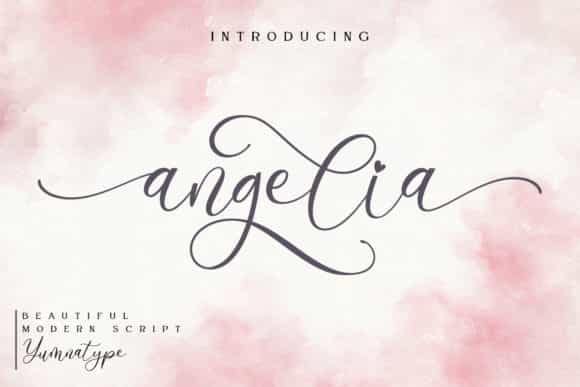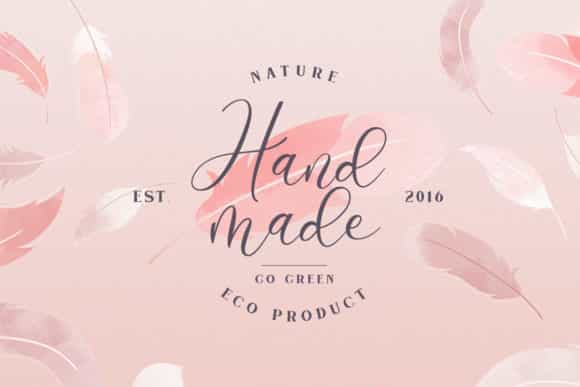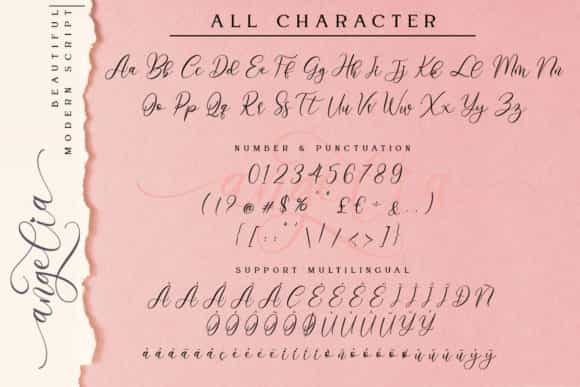
Angelia is an elegant calligraphy typeface that has a classic roots. Beautiful formal script and an sophisticated touches. It’s perfect for weddings as well as greeting cards, logos as well as printed ads, quotes magazines, signage etc.